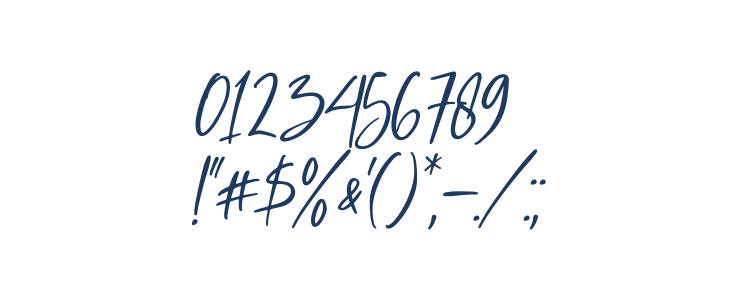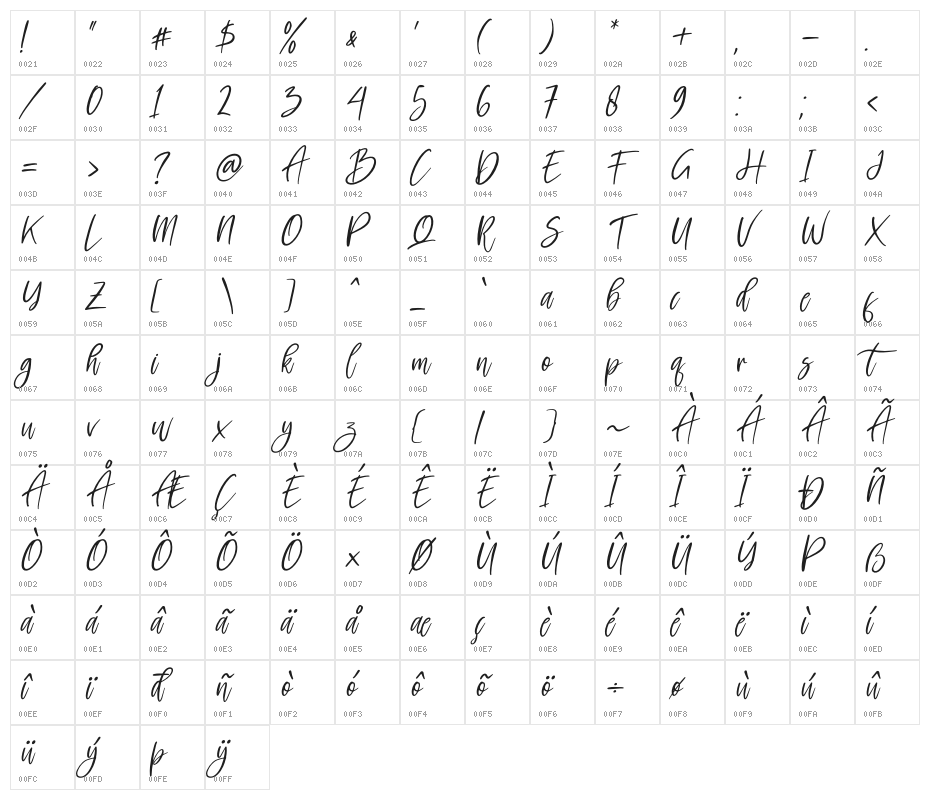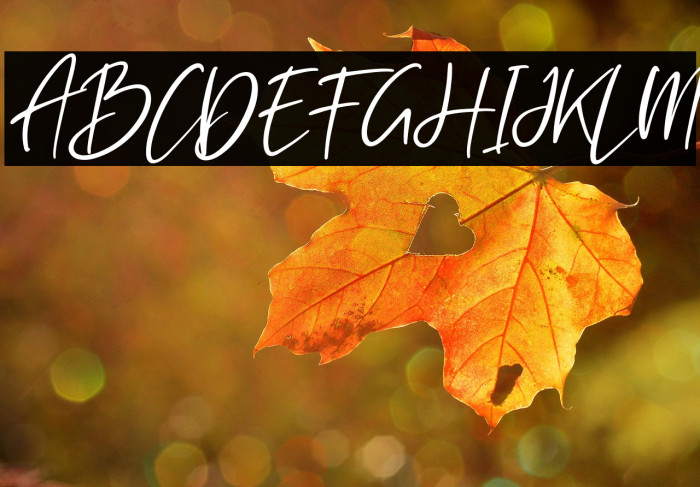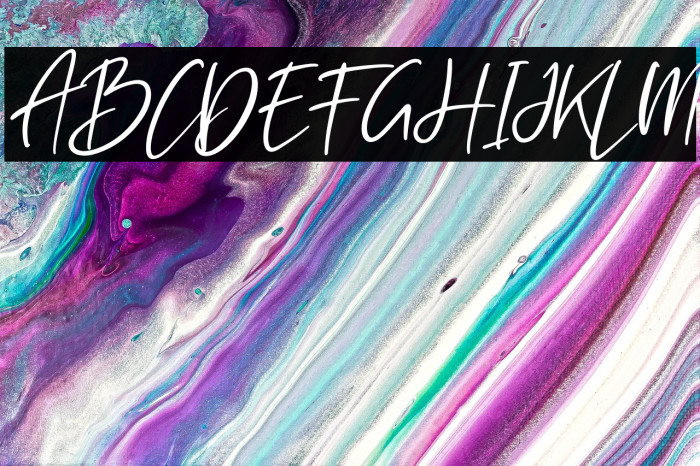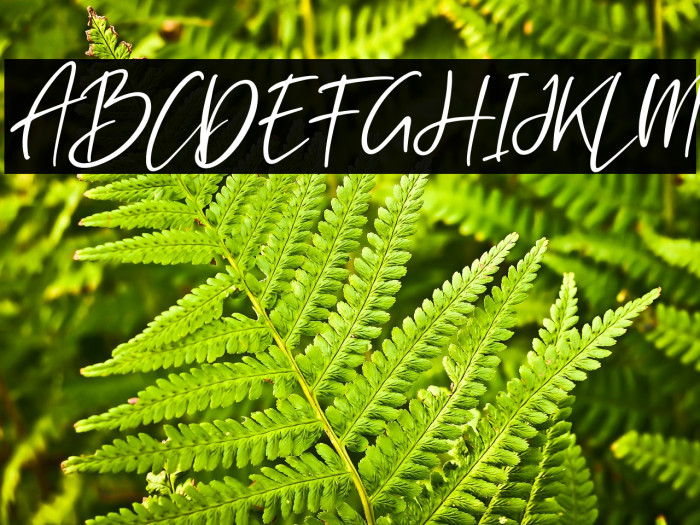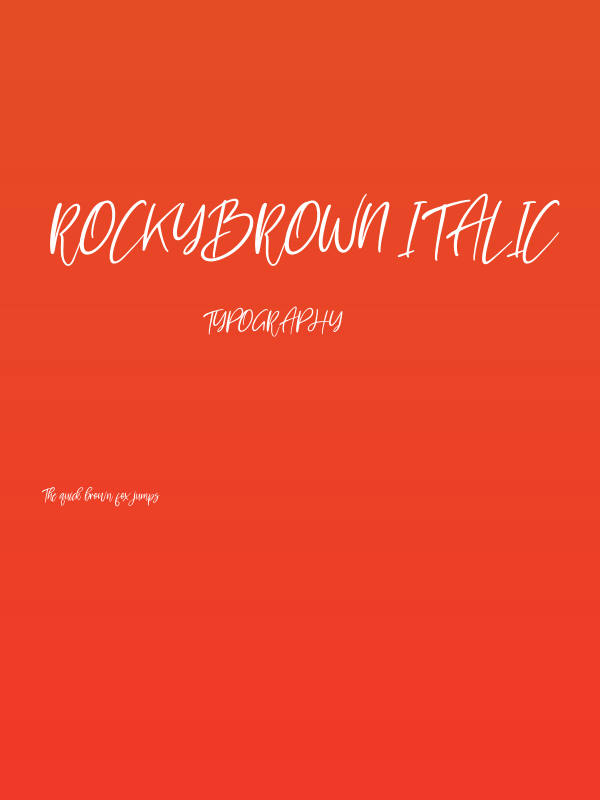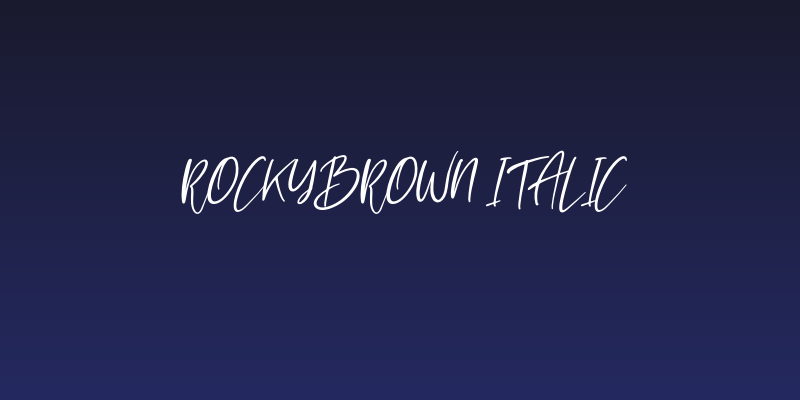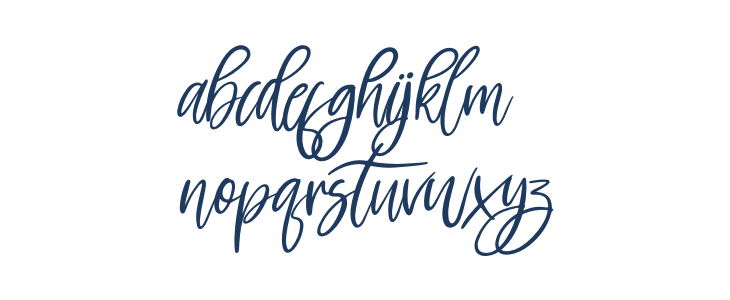
Rockybrown Italic Font
Rockybrown Italic Description
This font features a dynamic and fluid script style, characterized by its elegant and flowing letterforms. The strokes are smooth and connected, giving it a handwritten appearance. The uppercase letters are tall and slightly slanted, while the lowercase letters maintain a consistent rhythm with a playful yet sophisticated touch. The numerals and special characters are crafted with the same attention to detail, ensuring a cohesive look across all elements. This font exudes a sense of creativity and personal expression, making it ideal for projects that require a personal or artistic flair.